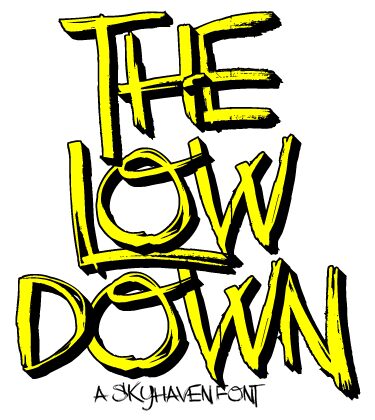
The Low Down is a free brush script with sharp, restless strokes and a raw hand-painted finish. Its uneven forms overlap and slash across the line.
A music poster is its strongest setting, where the scratchy texture can echo punk artwork, underground flyers, and energetic album covers. The same aggressive lettering can shape streetwear branding and event merchandise, turning a name into something closer to a painted tag or custom emblem.
The Low Down